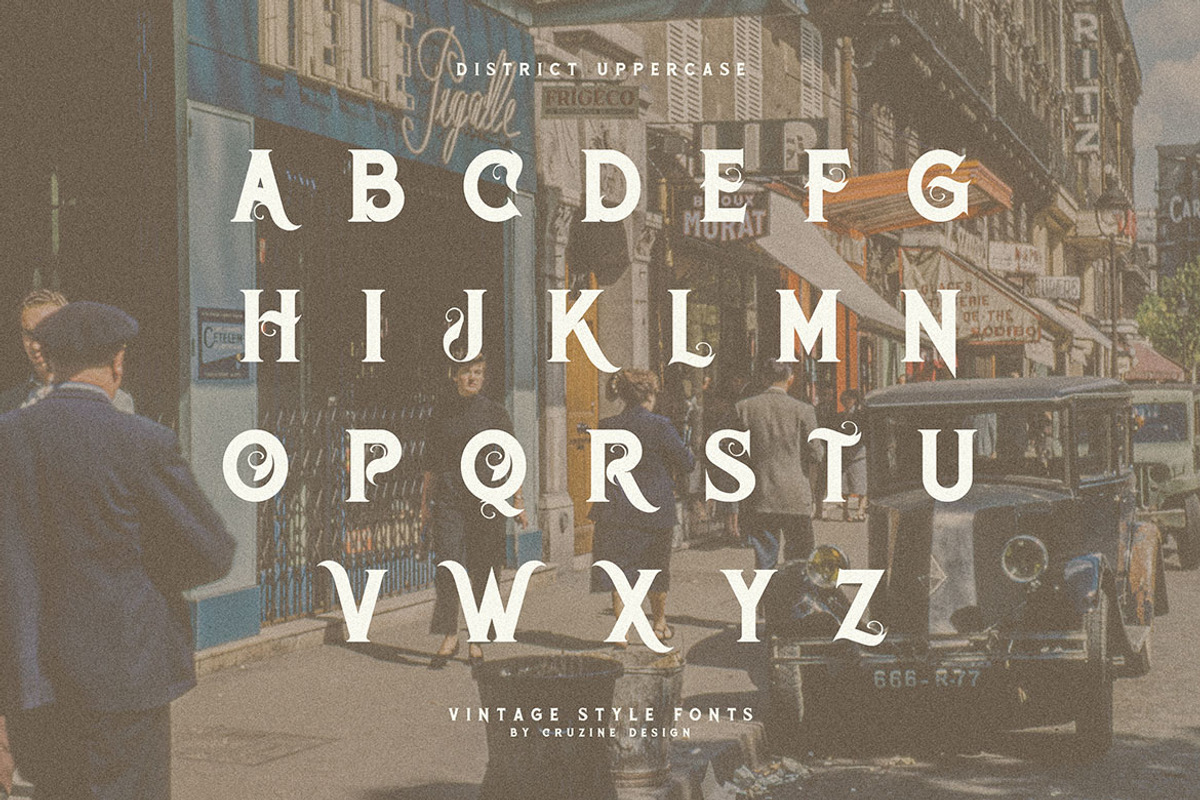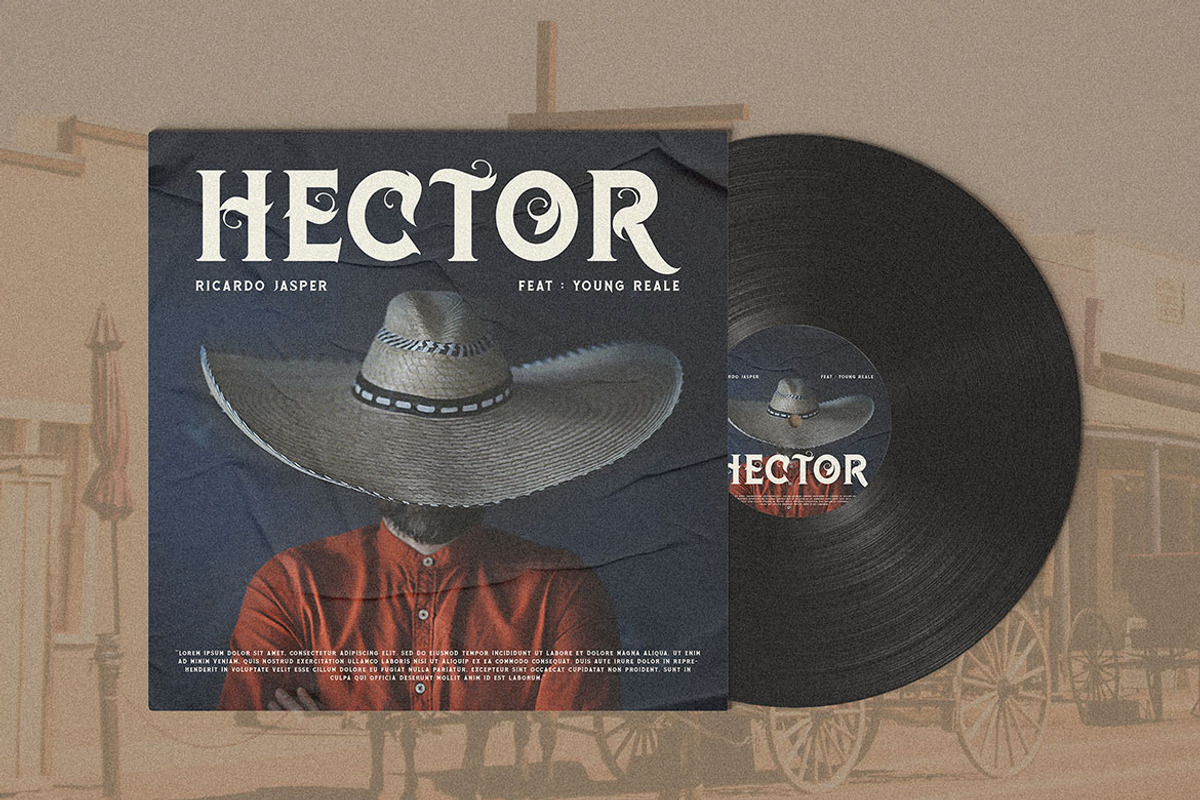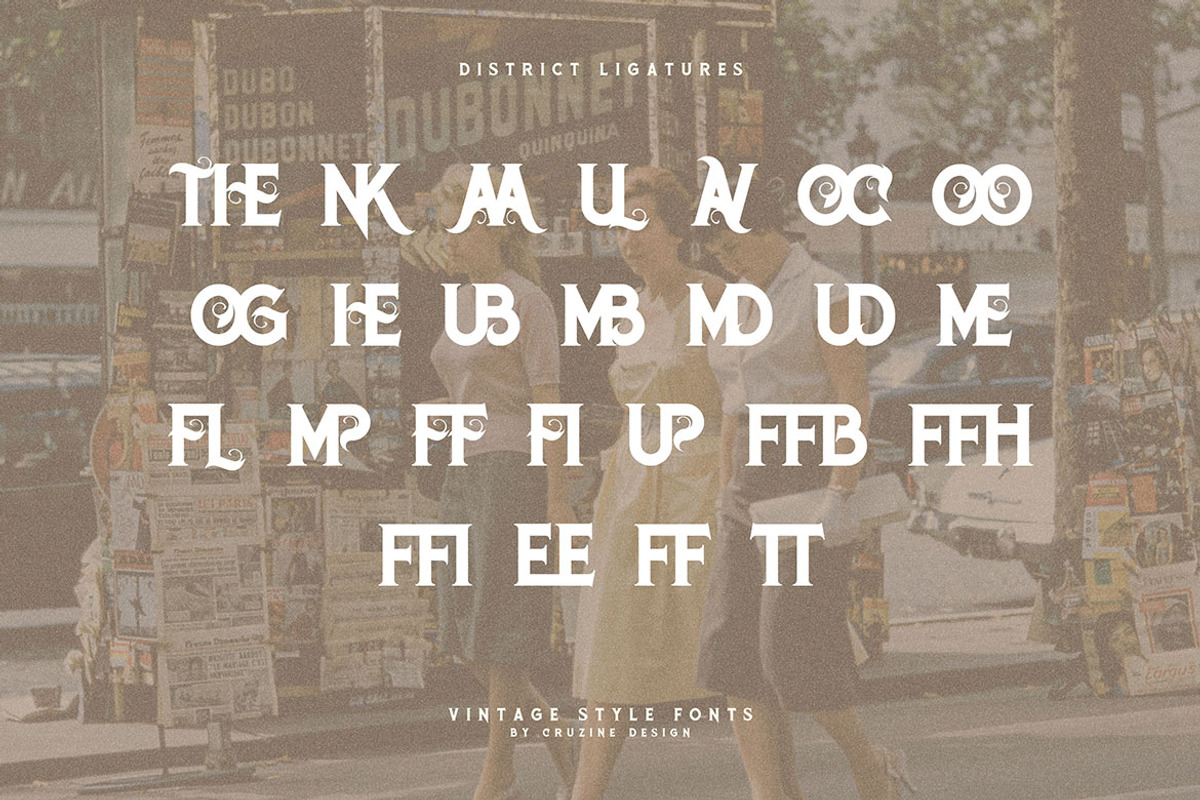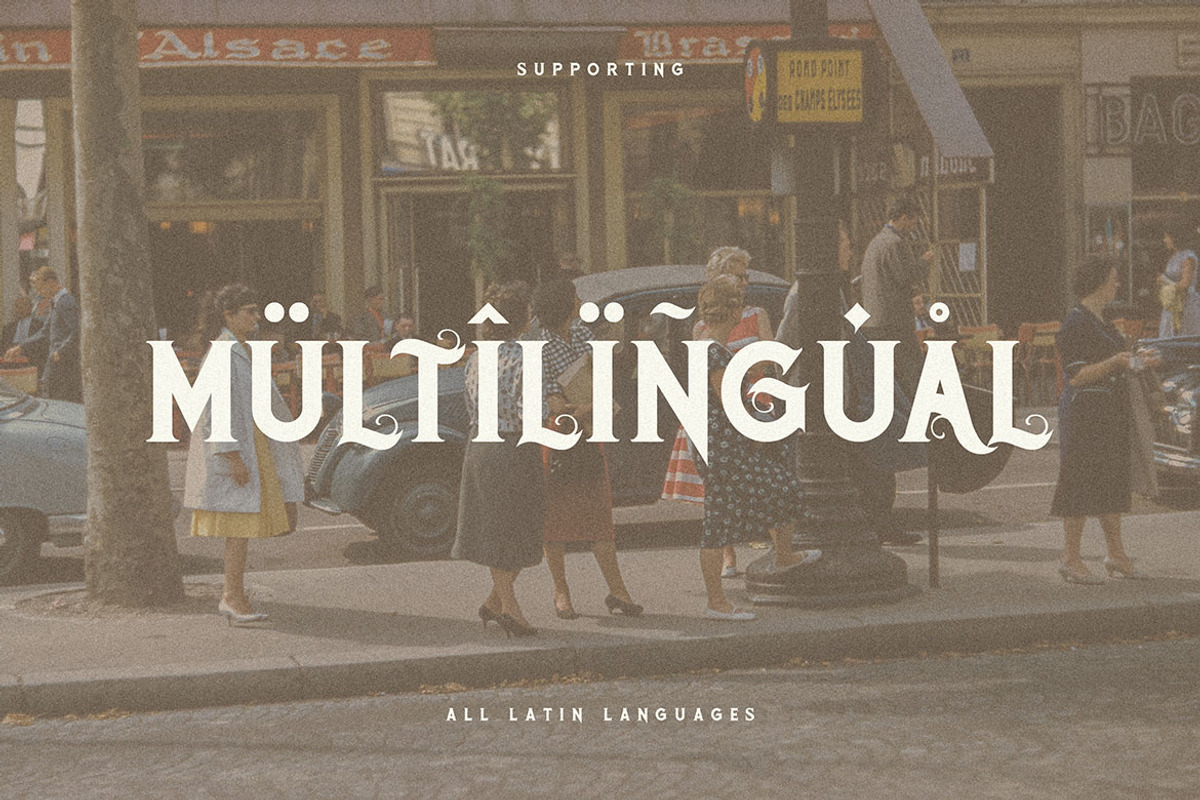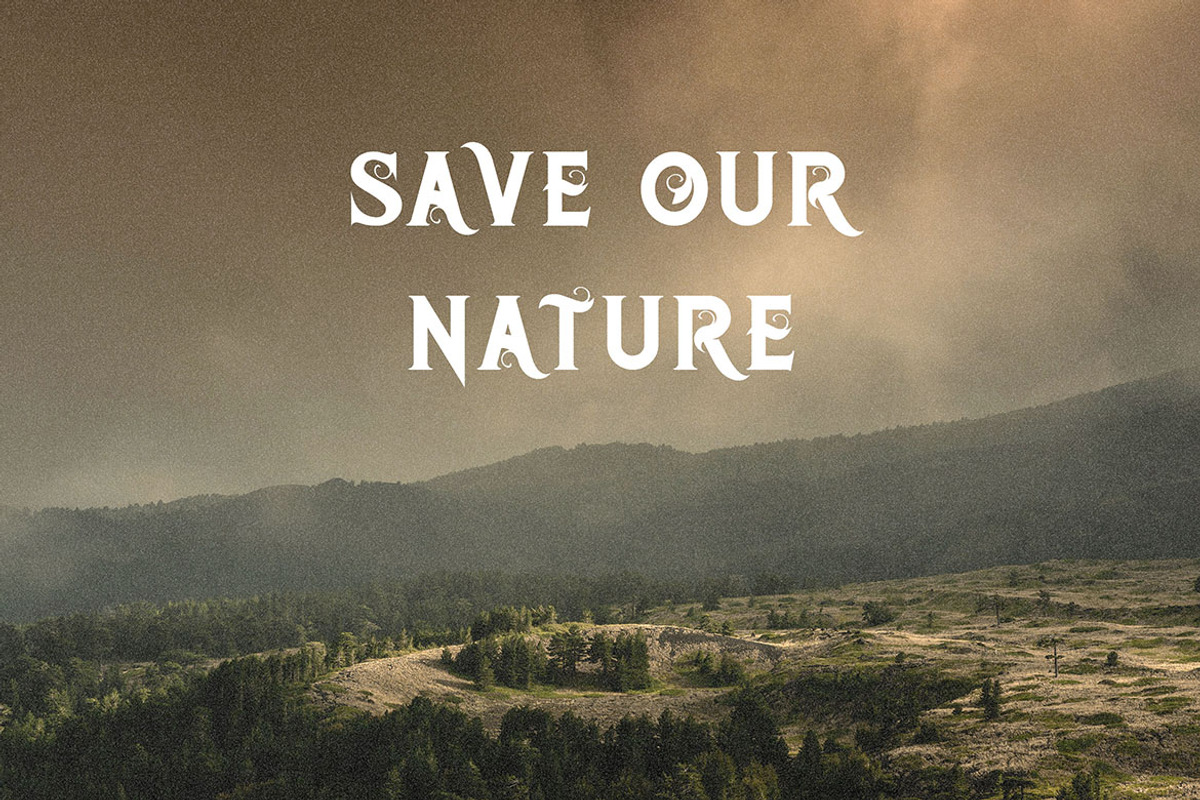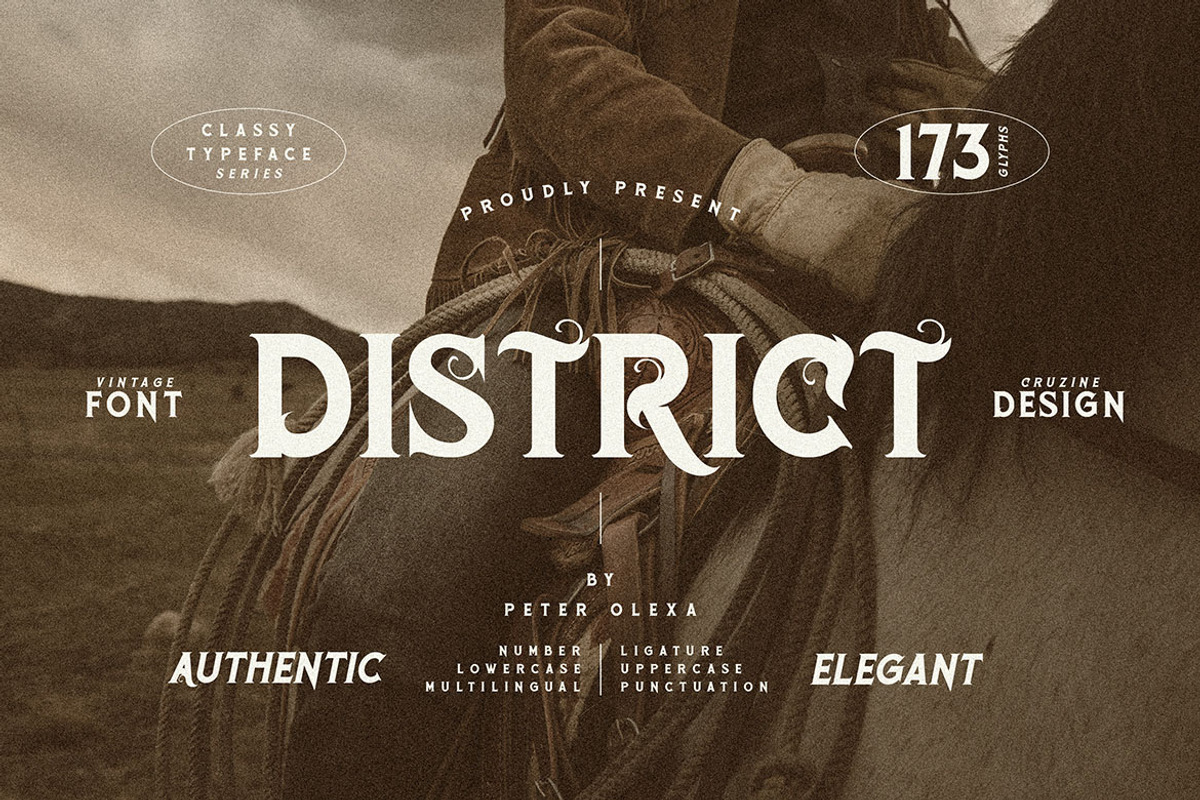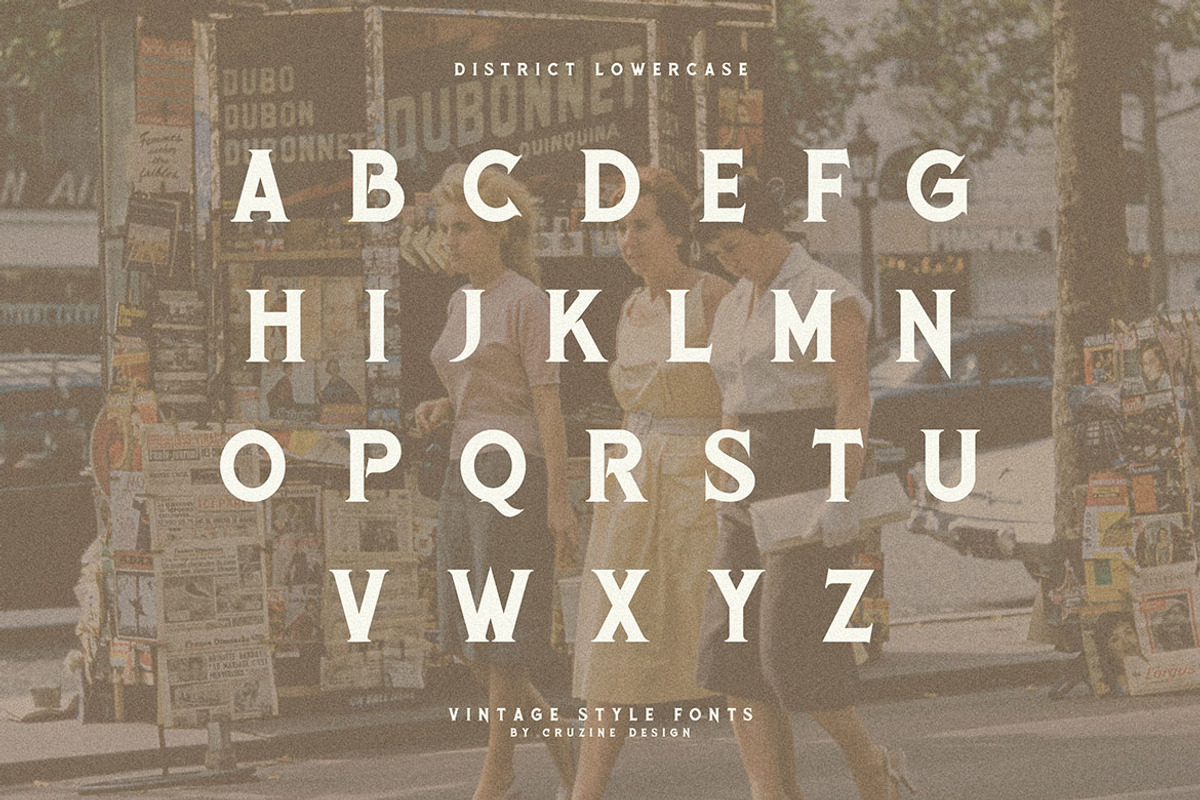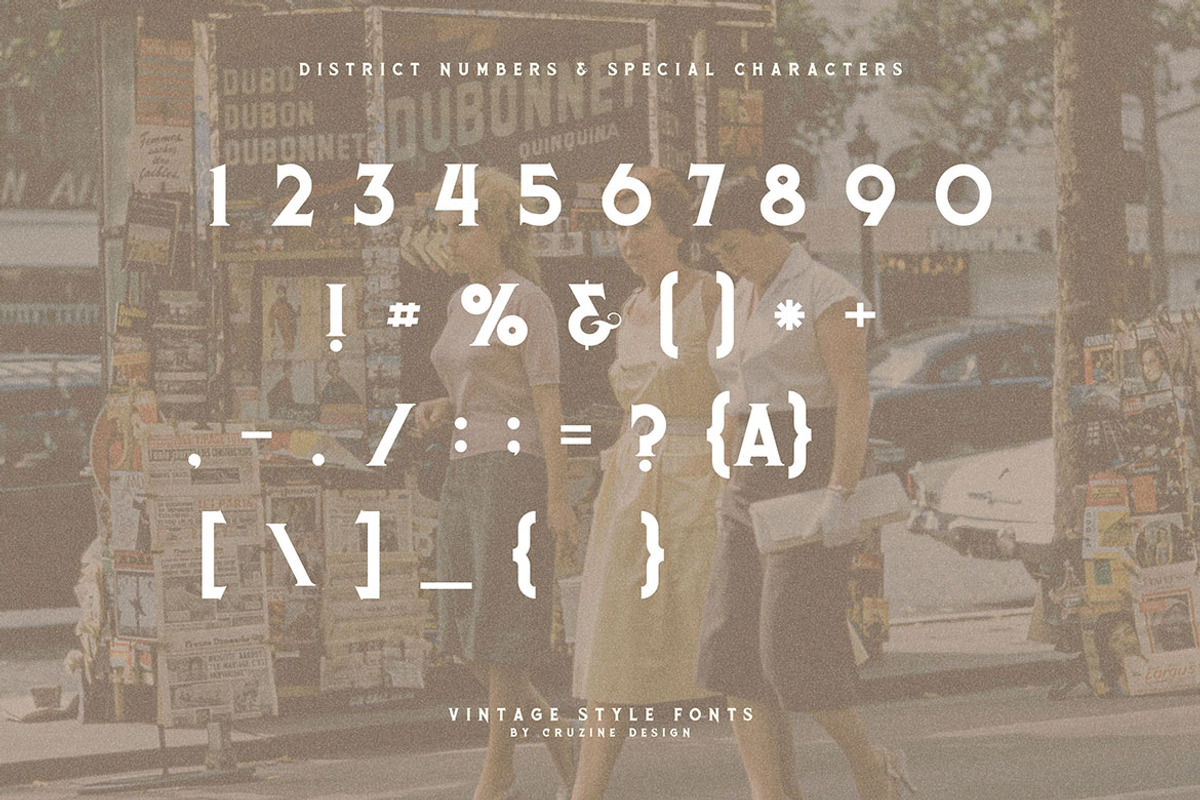
District Vintage Serif
Unique bold, vintage & decorative serif font. Comes with multilingual support & ligatures - great for your new logo or branding project.
- Great for retro or vintage style branding projects